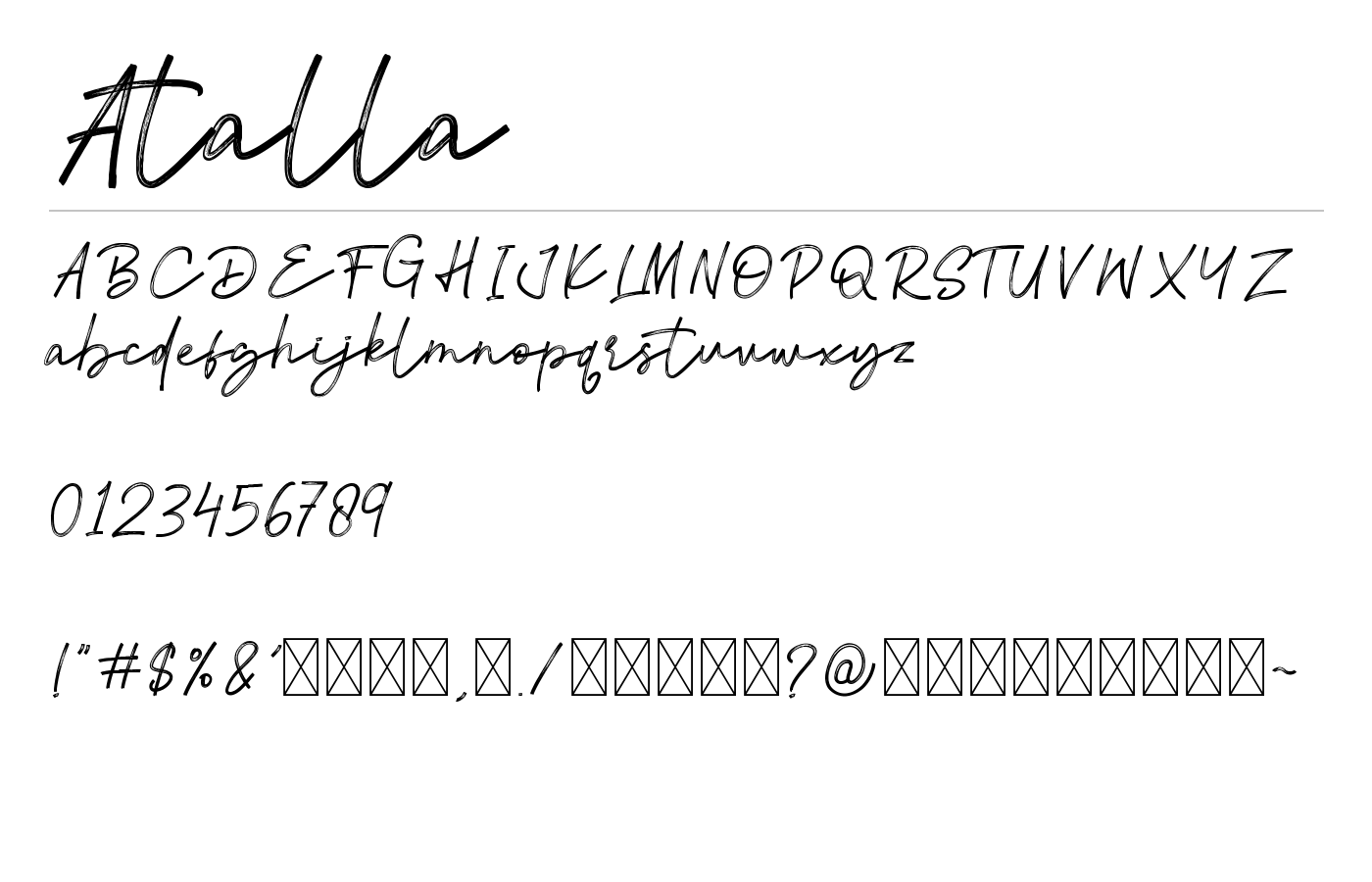
Atalla is a stylish script font characterized by its slender, slightly slanted letterforms that emulate natural, elegant handwriting. With a light weight and smooth, flowing strokes, it exudes a casual yet refined personality, making it perfect for creative branding, invitations, and editorial designs that seek a personal, artistic touch.
Atalla Font
About Atalla Font
| Font family | Atalla Font |